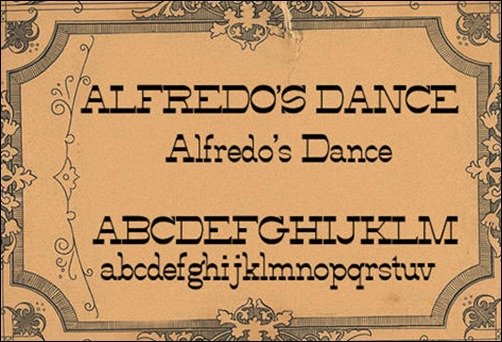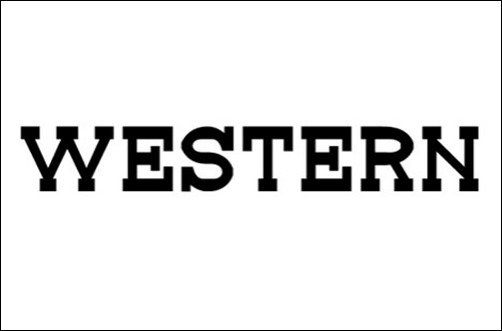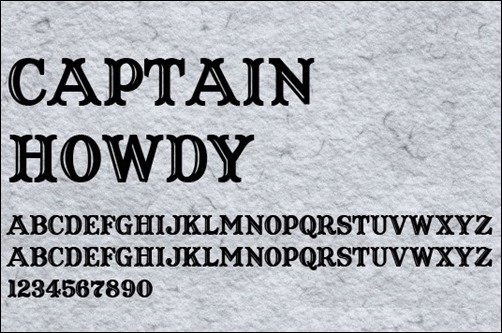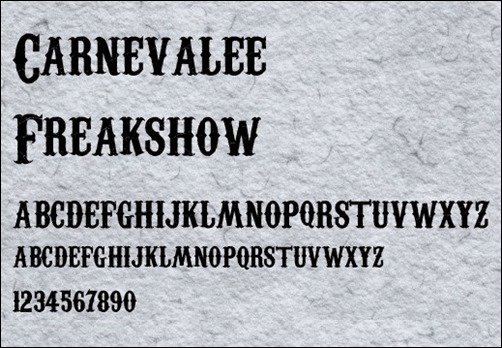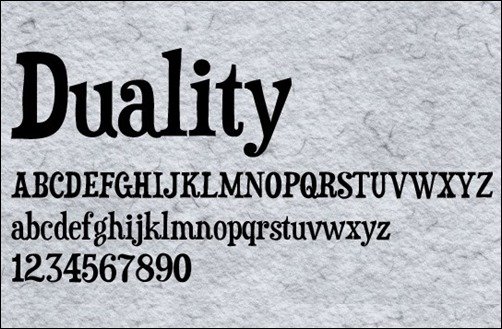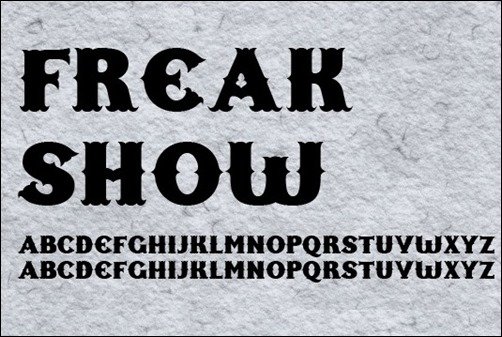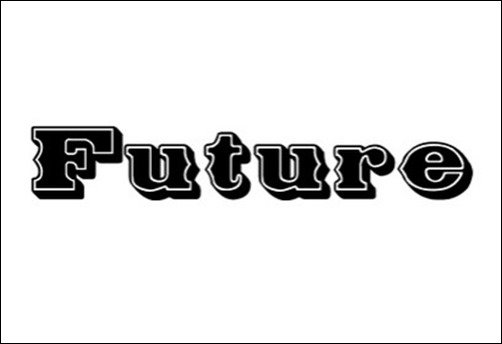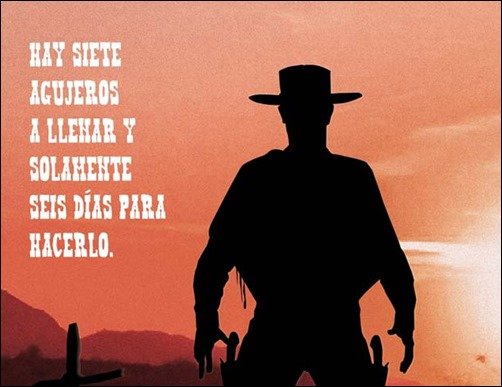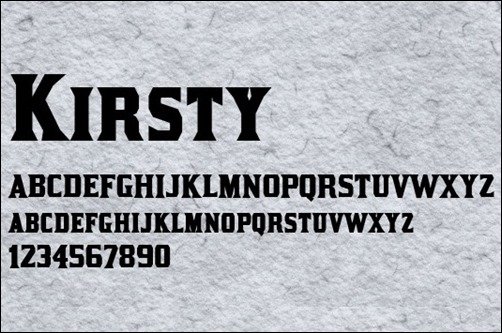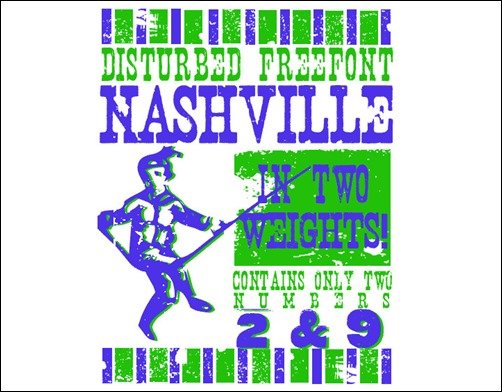
Free western fonts are quite popular in today’s world. You can find western inspired designs in posters, toy boxes, bill boards, logos etc. and cowboys bring a lot of entertainment into our lives through Western movies, country music and cartoon series. Most people just love the wild, wild West, its touch culture and humor and of course its interesting stories. But where do you find the perfect cowboy font if you are going to create a western inspired design?
Western fonts provides a different look and feel compared to other common font categories of typography. Typically a western font is a Slap Serif font. You will notice that the serifs often are squared, large and bold compared to other serifs. Western fonts are often used for “MOST WANTED” posters and headlines. However, looking for free Western fonts can be a quite challenging task because there are plenty of different fonts available online.
Gringo Nights – MORE INFO
Gringo Nights font depicts a cowboy theme drawing heavily on the Western culture, which utilizes rusty and grunge elements, as well as bold in texture. This can be a great typography to use when making a signature brand for a particular product.
Poke Western Font – MORE INFO
Poke Western font presents a fancy, custom monogram font that is complemented with sketches of hay and other symbolic elements of the countryside. This cowboy font is available for download.
Two Gun Johann – MORE INFO
This cowboy western font presents a simple, narrow typography with unique edges which can be perfectly used in Western-themed prints. This is free to download by anyone who is inspired by the Western culture.
Tonky Western Font – MORE INFO
Tonky font is a contemporary type of typography that features narrow fonts embedded with a Western country feel. This is one of the cowboy fonts that are usually downloaded by people inspired by Western culture.
Alfredo’s Dance – MORE INFO
Another Western font features simple characteristics based on a contemporary feel resembling that of the standard fonts like Times New Roman and Book Antiqua. This can be used in formal-themed medium.
Vanilla Whale – MORE INFO
Although this type of font is not purely cowboy-inspired, its elements are inspired from the Western culture. Each font has a narrow characteristic with jagged edges that makes it contemporary.
Body Hunter Western Font – MORE INFO
This is one of the contemporary cowboy fonts that use the elements of grunge and rugged to create a messy yet eye catching typography like this. It is added with simple artistic elements like swirls and other sketches to enhance its feel.
Saddle Bag Western Font – MORE INFO
Saddle Bag is a form of typography inspired from an original photo-lettering typeface around 1950s. The fonts are in bold letters, with artistic sharp edges found on the edges of the font.
Cowboy Font – MORE INFO
This conventional cowboy font is a popular Western typography that is often used in print and digital media which features the countryside. It features an all capitalized fonts and normal type fonts.
Helldorado Western Font – MORE INFO
Helldorado font features a western rope font in all caps except for some letters who features lower cases. This font is free to use as a typography in print and digital media.
Brownwood – MORE INFO
This old-schooled Westernized cowboy font is occasionally used by some media that promotes a countryside-themed newsletters and other stuffs. It works heavily on bents and curves.
Nashville Free Front – MORE INFO
From the name itself, this typography is inspired from a recognized state where Western culture is highly regarded. Nashville font characterizes bandits and an old western form of typography that can be used for free.
Trashed Western Font – MORE INFO
This contemporary Western-inspired font features a rusty, corroded and messy typography which brings a contemporary era of typography in digital and print media. This font can be used in styling country-themed prints.
Carnevalee Freakshow Font – MORE INFO
This type of typography has been used in some T-shirt designs and other signature brands for particular products. It features simple font characterized with jagged edges and slim appearance.
Bleeding Cowboys – MORE INFO
This is one of the artistic free western fonts on the list, which features simple typography enhanced with visual effects that will truly catch attention. This font is absolutely free to use.
Future West – MORE INFO
This font presents bold and thick letters and numerics, which are outlined with white shade in order for the letters to stand out within its outline. This Western font is an example of a contemporary font.
Bou Western – MORE INFO
Bou Western quite resembles from standard fonts like Times New Roman. However, it features blocked edges, which makes it a Western-inspired typography. It is one of the free western downloads that people will enjoy.